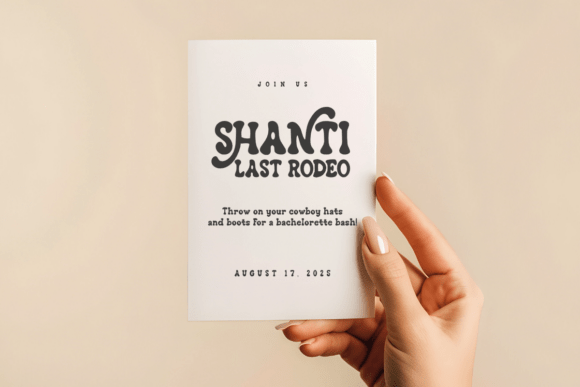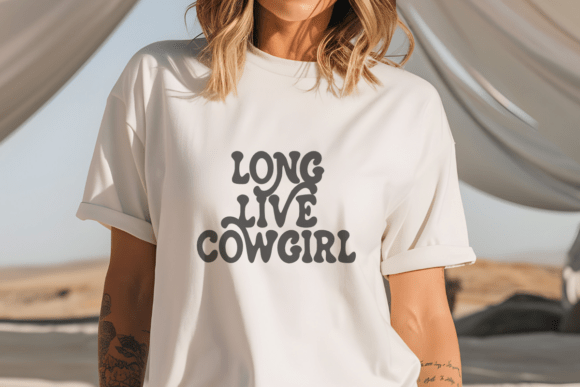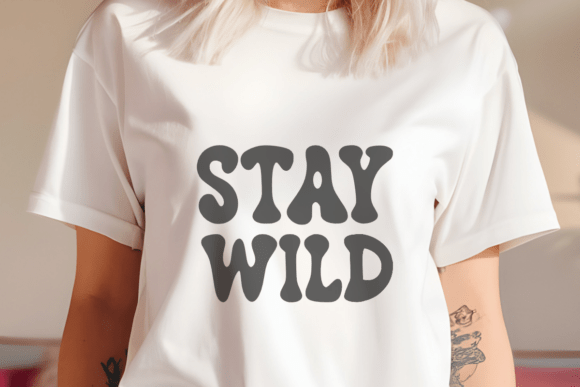
Introduction to Howdy Ranch Font
Have you ever been stuck in a creative rut, struggling to find the perfect design element to bring your project to life? You’re not alone. As designers, we’ve all been there. But what if I told you that there’s a font that can transport you to the wild west, infusing your designs with a rustic charm that’s hard to resist? Say hello to the Howdy Ranch Font, a beautifully crafted, handwritten font that’s about to become your new best friend.
This stunning font is more than just a design resource – it’s a game-changer. With its high-quality, transparent background, you can easily incorporate it into your projects, from graphic tees to social media posts. And with a free download available, you can get creative without breaking the bank. Whether you’re working on a personal project or a client brief, the Howdy Ranch Font is the perfect addition to take your design to the next level.
Key Features of Howdy Ranch Font
- Unique Hand-Drawn Design: The Howdy Ranch Font features a distinctive hand-drawn style, making it perfect for creative projects that require a personal touch.
- High-Quality Design Resource: This font is a high-quality design resource, ideal for designers and artists looking to add a rustic touch to their work.
- Perfect for Western-Themed Projects: The Howdy Ranch Font is particularly well-suited for western-themed projects, such as country-inspired designs, cowboy-themed artwork, and rustic-themed websites.
Honest Review: Howdy Ranch Font
I recently came across the Howdy Ranch Font, and I must say it’s a great addition to any design resource collection. The font is free to download, making it an excellent option for creative projects on a budget.
The font itself is quite unique, with a clear western theme and a set of interesting glyphs. I particularly enjoy the bold, playful feel of the font, which makes it perfect for use in titles and headings.
- What works well: ✨ The font is highly legible, even at smaller font sizes. It also comes with a transparent background, making it easy to integrate into designs with complex backgrounds.
- What works well: ✨ The font is available in several weights, allowing designers to mix and match to achieve the desired visual effect.
However, there are some limitations to consider: ⚠️ The font may not be suitable for all types of designs, particularly those that require a more formal or minimalist aesthetic. Additionally, some of the glyphs may not be as detailed or refined as those found in higher-end fonts.
Overall, I think the Howdy Ranch Font is a great option for designers looking for a high-quality, free font to use in their creative projects. While it may not be perfect, it’s definitely worth considering for its unique character and versatility.
To get the most out of the Howdy Ranch Font, experiment with different font sizes and styles to create a unique look. You can also combine the font with other design elements to create a cohesive and eye-catching design.
The Howdy Ranch Font is perfect for a variety of creative projects, including invitations, posters, and social media graphics. Its high-quality design and transparent background make it easy to use in a range of design applications.